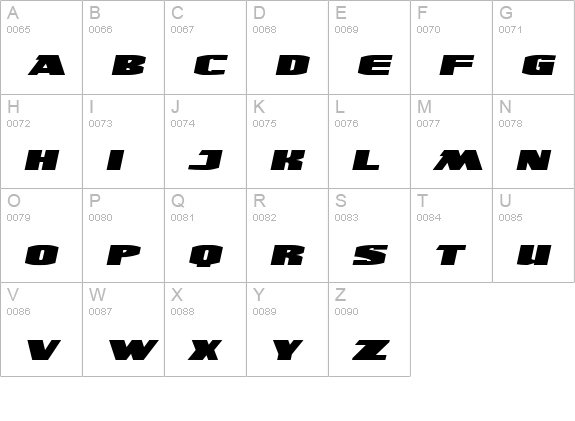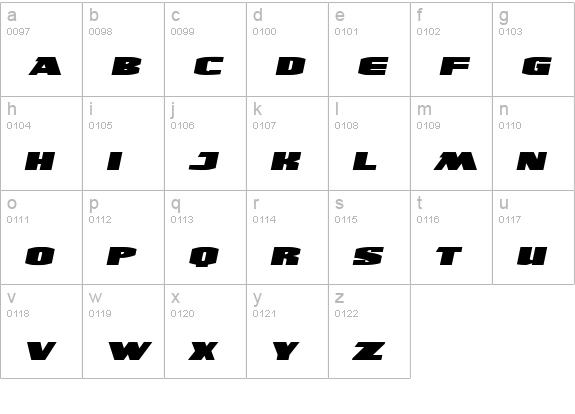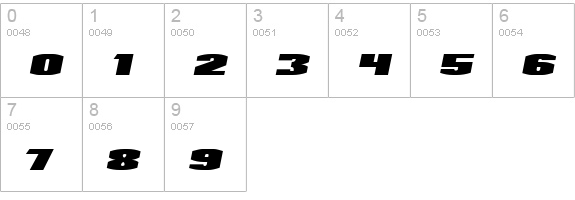
UltraViolent BB Italic Font Details
UltraViolent BB Italic is a distinctive, italic variant in the UltraViolent typeface family \xE2\x80\x94 well suited to design and typography projects.
UltraViolent BB Italic is a captivating and dynamic font that exudes an edgy and rebellious vibe. Its sleek and modern design features sharp and angular letterforms, perfectly embodying the essence of urban culture and street art. The italicized style adds a touch of sophistication and elegance, making it an excellent choice for projects that require a bold yet refined aesthetic. With its strong presence and commanding presence, UltraViolent BB Italic is perfect for headlines, logos, posters, and any design that needs to make a bold statement. Its unique personality and distinctiveness will effortlessly grab attention and leave a lasting impression on viewers. But what makes UltraViolent BB Italic even more impressive is that it is available for free download at FontsMarket.com. This means that you can enjoy the power and impact of this extraordinary font without spending a dime. FontsMarket.com is a reliable and trustworthy source for high-quality fonts, ensuring that you have access to the best resources for your design projects. So whether you are a professional designer looking to elevate your creations or an enthusiast wanting to add an extra flair to your personal projects, UltraViolent BB Italic is the ideal choice. Its combination of creativity, style, and affordability makes it a must-have font in your collection. Don't miss out on this opportunity to enhance your designs with this exceptional typeface – download UltraViolent BB Italic for free at FontsMarket.com today.